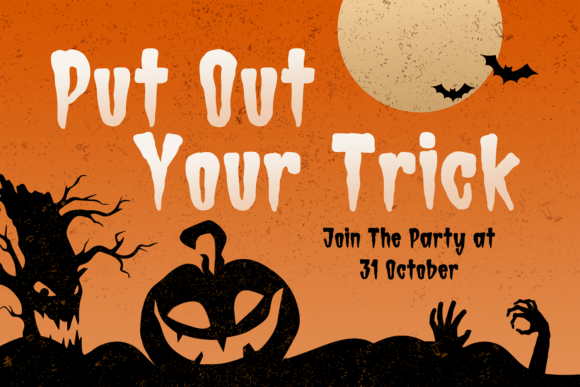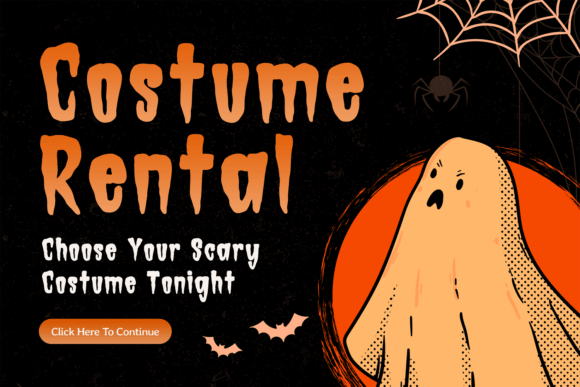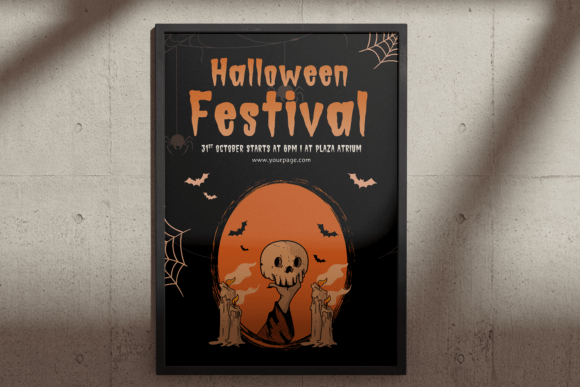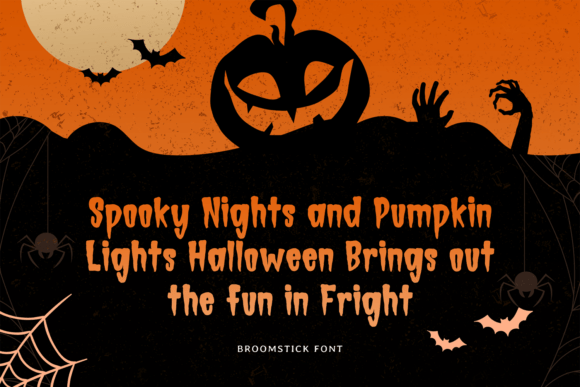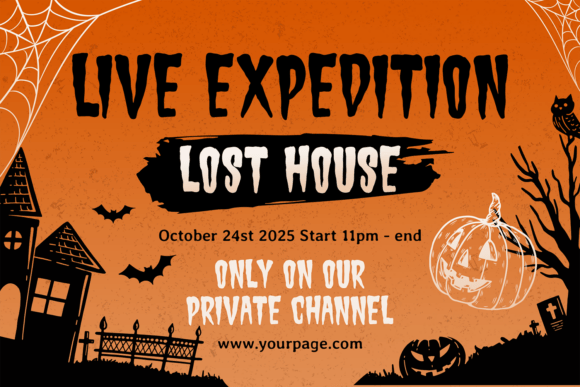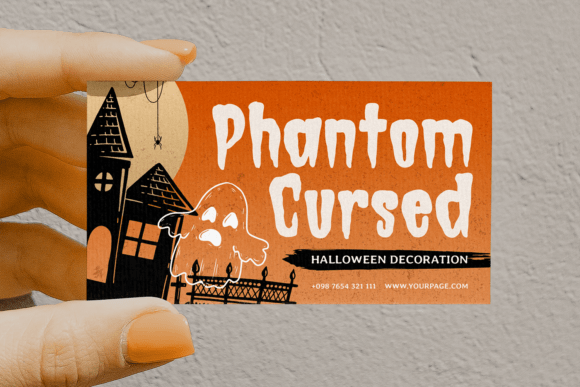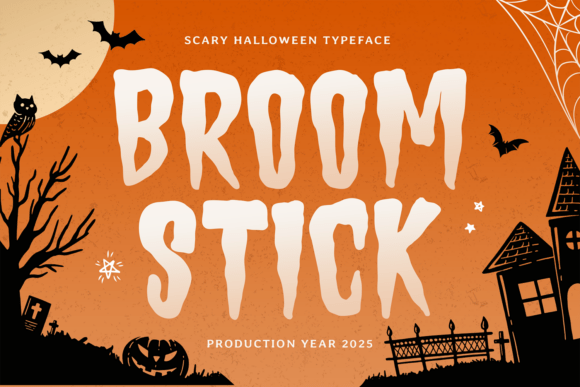
The Magic of Broomstick Font: A Whimsical Addition to Your Halloween Projects
I still remember the year I was tasked with designing a Halloween party invitation for a client’s kid’s birthday bash. The theme was a spooky witch’s brew party, and I was determined to create something that would make the kids (and their parents) squeal with delight. As I scrolled through font after font, I just couldn’t find the perfect fit – something that captured the whimsy and spookiness of the season. That’s when I stumbled upon the “Broomstick” font, and it was love at first sight! ✨
A Personal Review of Broomstick Font
So, what makes Broomstick font so special? Let’s dive into the good stuff:
- ✅ Unique and eye-catching design: The playful, uneven strokes and curling details are inspired by witches’ brooms, making it perfect for Halloween-themed projects.
- ✅ Perfect balance of fun and spooky: Broomstick font balances a fun, mystical vibe with the chills of the season, making it ideal for a wide range of projects.
- ✅ Delicate curves and whimsical flourishes: The font’s decorative elements add a touch of magic to any design.
Of course, no font is perfect, and Broomstick has a few quirks to keep in mind:
- ⚠️ Limited use outside of Halloween context: While Broomstick font is amazing for Halloween-themed projects, it might not be the best fit for other design projects.
- 🤔 Some letters may require manual kerning: As with any font, you might need to adjust the kerning to get the perfect look.
The Story Behind Broomstick Font
Broomstick font was designed with one goal in mind: to capture the enchanting and eerie spirit of Halloween. The designer, inspired by the magic of witches’ brooms, created a font that would evoke the charm of a mystical October night. With its playful, uneven strokes and curling details, Broomstick font is the perfect addition to any Halloween-themed project.
| Font Name | Broomstick Font |
| Author | Mozatype |
| What makes Broomstick font unique? | Broomstick font’s unique blend of playful, uneven strokes and curling details, inspired by witches’ brooms, sets it apart from other fonts. |
| Can I use Broomstick font for non-Halloween projects? | While Broomstick font is designed with Halloween in mind, you can experiment with using it for other projects – just keep in mind its unique character might not fit every design. |
| Does Broomstick font come with OpenType features? | Yes, Broomstick font includes OpenType features, such as glyphs and stylistic alternates, to help you add more flair to your designs. |
Ready to add a touch of enchantment to your spooky season? With Broomstick font, you’ll be conjuring up magical designs in no time! ✨